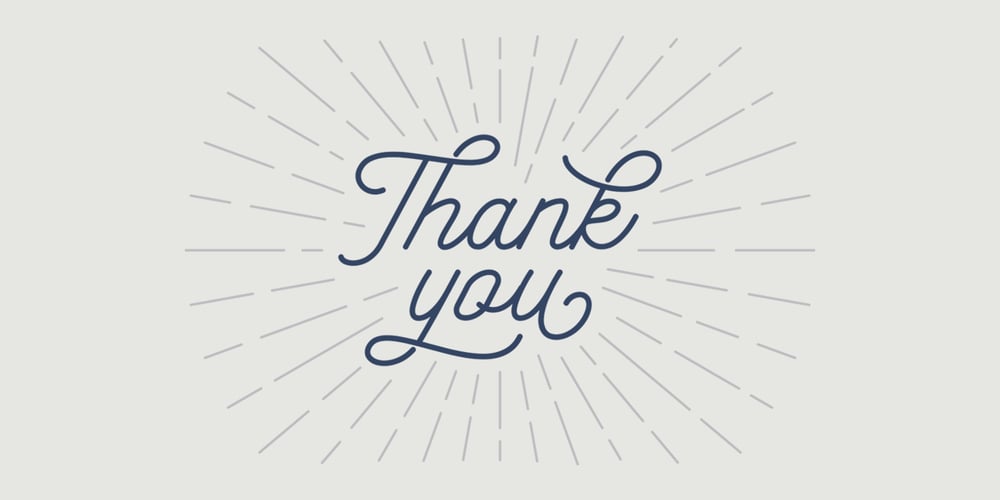
Setting Fires Font Family was designed by Ahmad Jamaludin and published by Ahmad Jamaludin. Setting Fires contains 1 styles and family package options. Setting Fires is a beautiful, sweet font, a vintage monoline with movement and grace. This is a unique script for you. This font contain ligatures, many stylistic alternate, swashes. It is also support multi language. Setting Fires has an elegant and stunning effect as display font which makes it perfect for branding projects, logos, wedding designs, social media posts, advertisements, product packaging, product designs, labels, photography, watermark, invitation, stationery and any projects that needs a handwriting touch. What’s Included? – More than 100 of glyphs – Ligatures & Stylistic Alternate – Works on PC & Mac – Simple Installations – Accessible in the Adobe Illustrator, Adobe Photoshop, Adobe InDesign, even work on Microsoft Word. – PUA Encoded Characters – Fully accessible without additional design software. – Multilingual Support